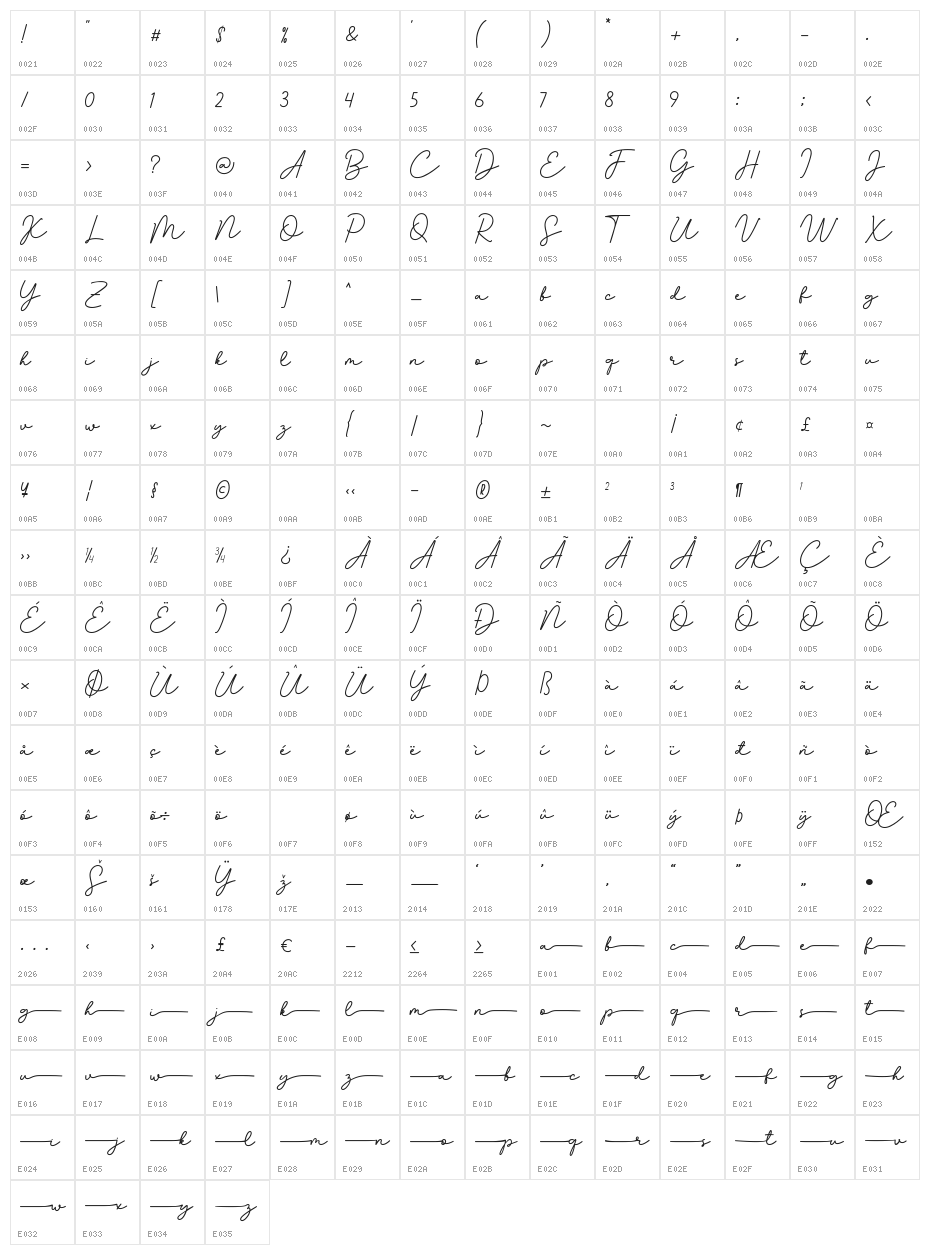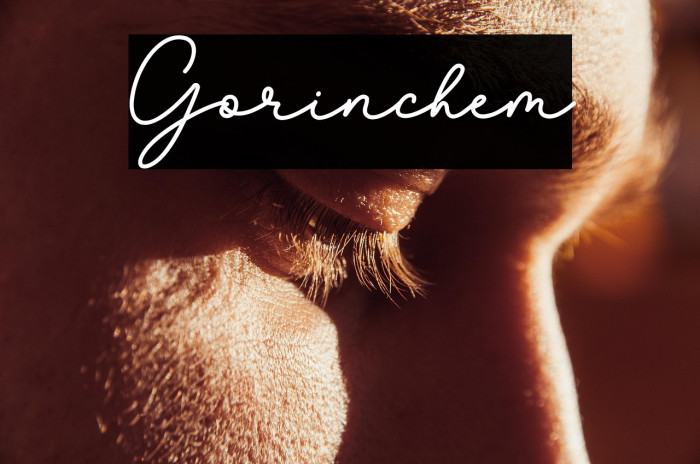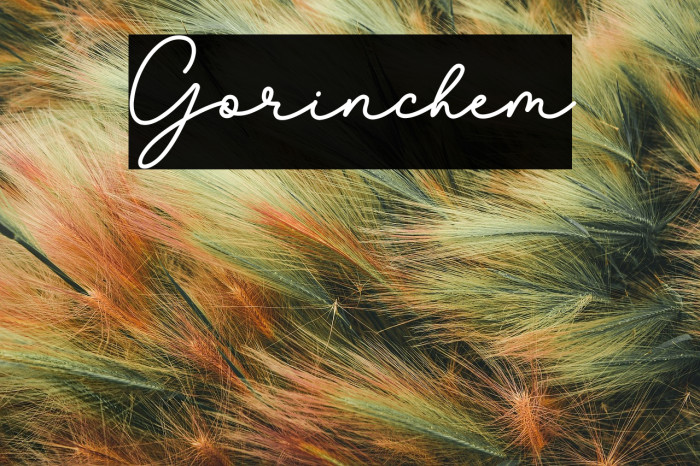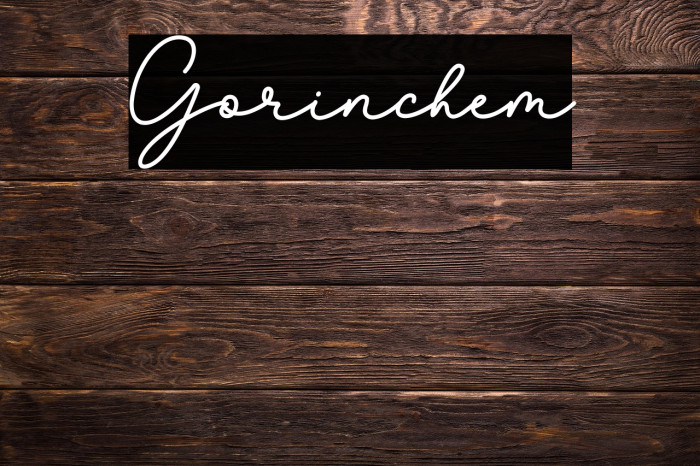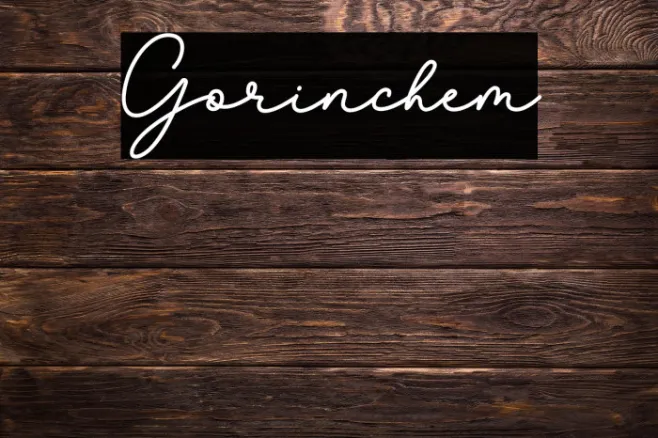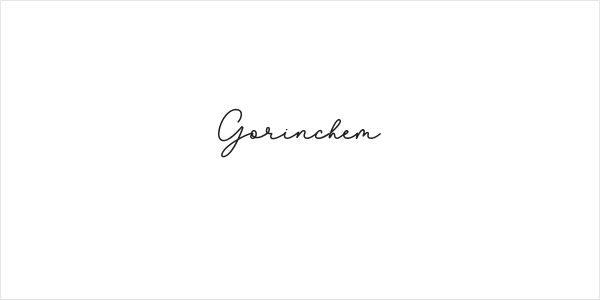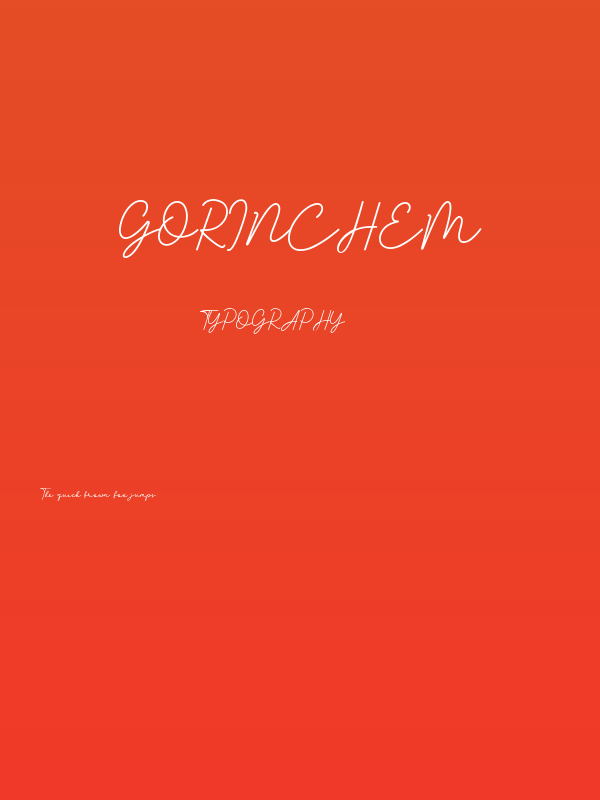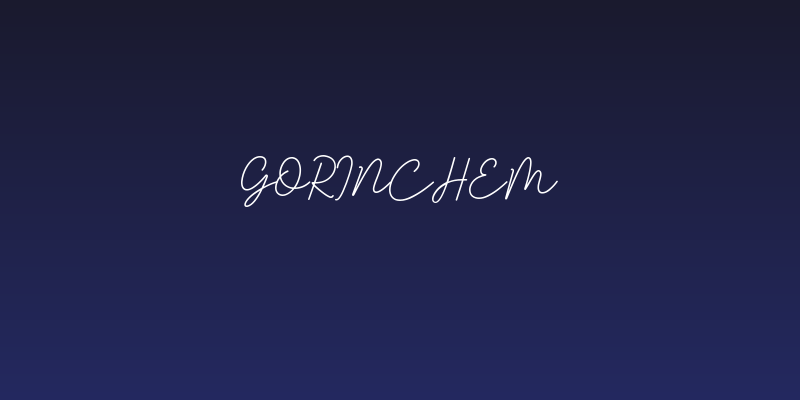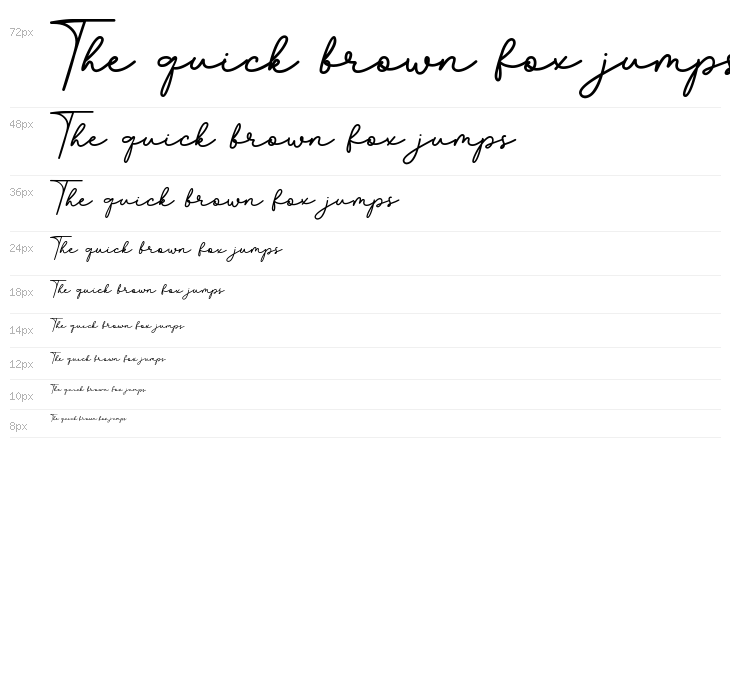
Gorinchem Font
Gorinchem Description
This font exudes a charming handwritten style, characterized by its fluid and connected letterforms that mimic natural cursive handwriting. The uppercase letters maintain a consistent height, while the lowercase letters exhibit a playful bounce, adding to the font's casual elegance. The numerals are clear and legible, complementing the overall style. Special characters are thoughtfully designed to match the flowing aesthetic, making the font versatile for various applications. Its smooth curves and consistent stroke width provide a harmonious and inviting appearance, ideal for projects that require a personal touch.
| Overall Style | Casual, Elegant |
| Use Case | Logos, Invitations, Social Media |
| Proposed Projects | Ideal for wedding invitations, greeting cards, personal branding, and social media graphics. |